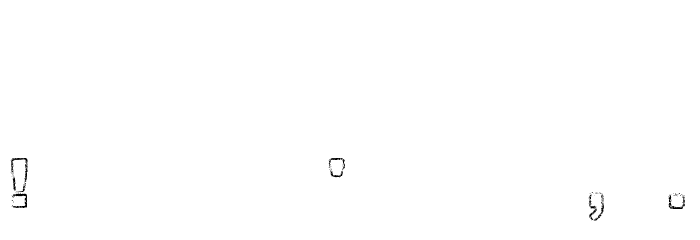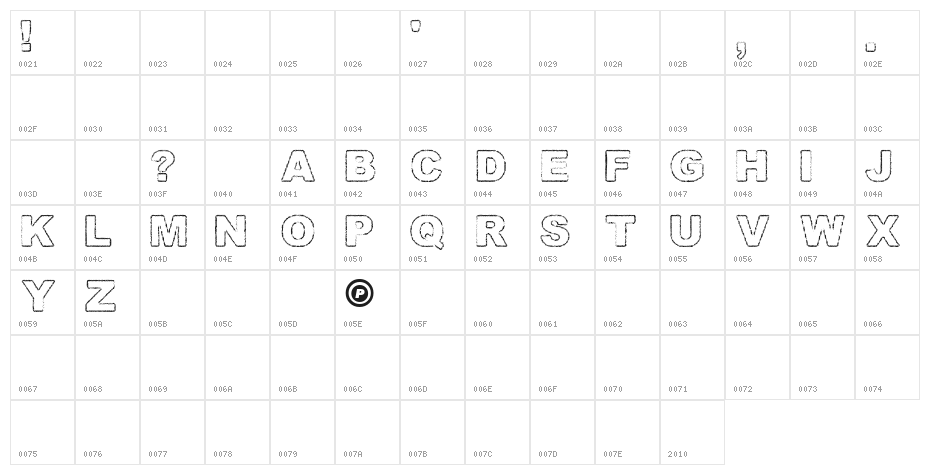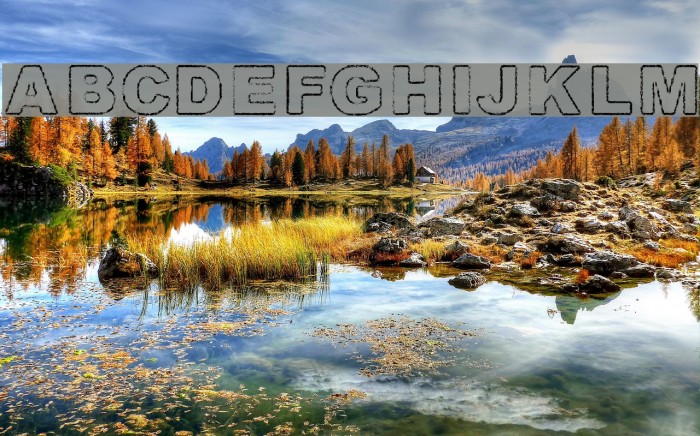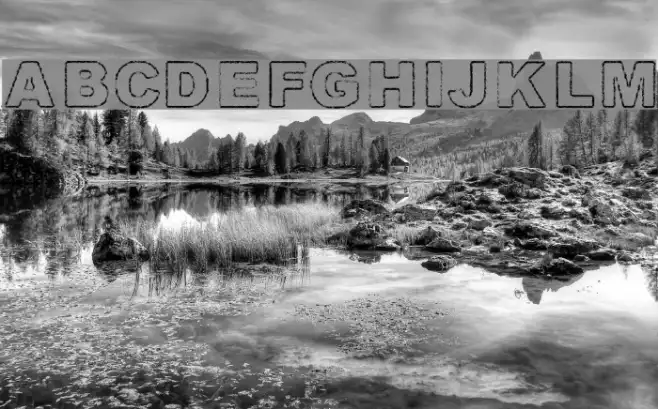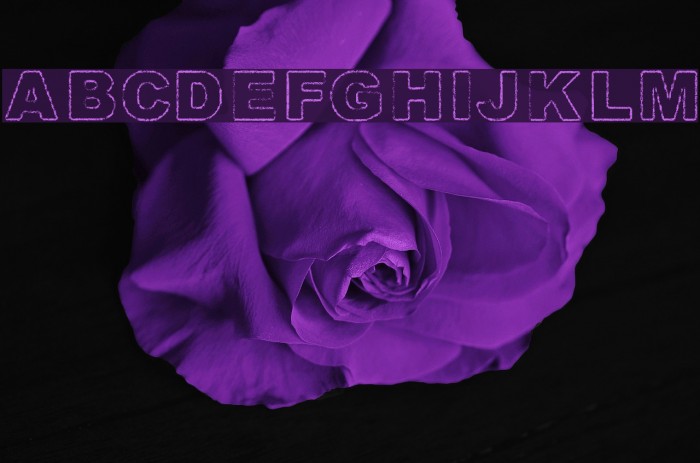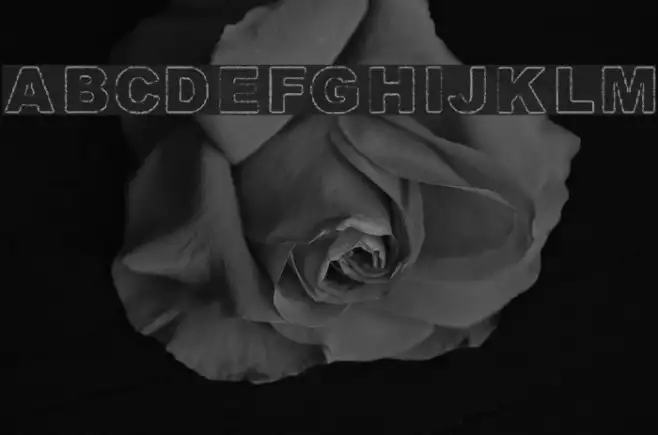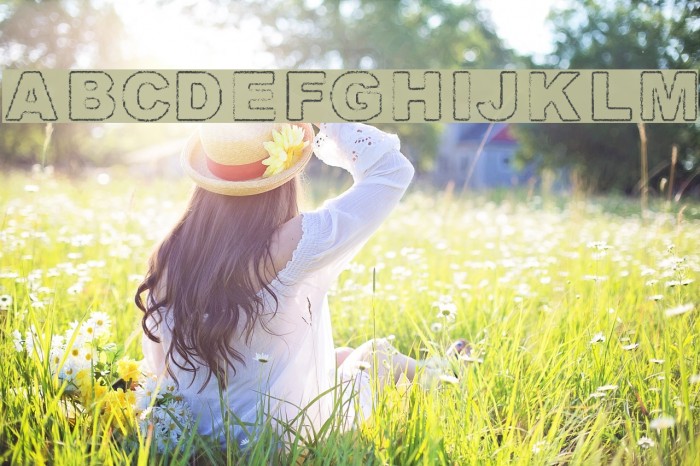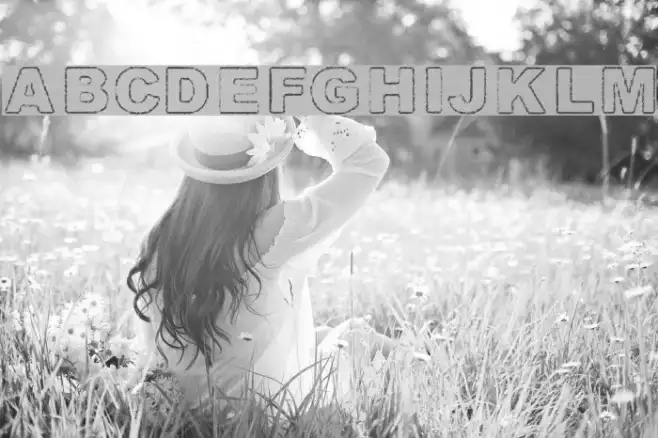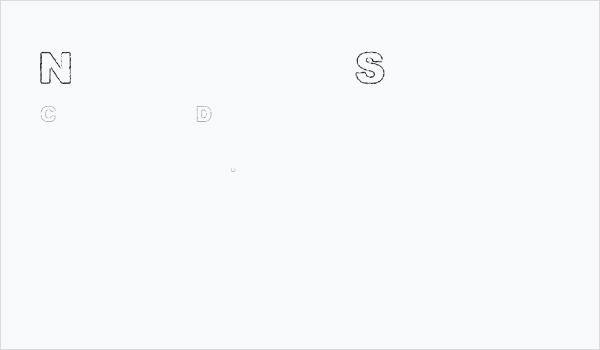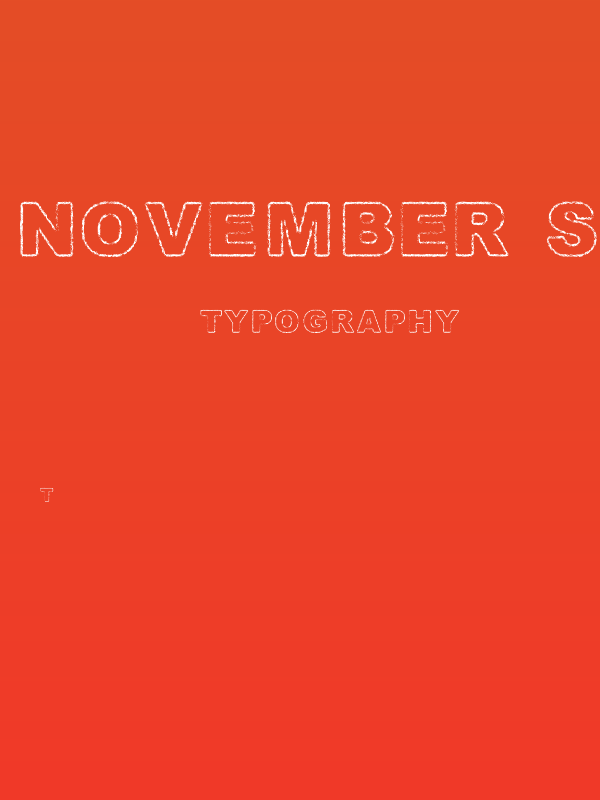
November Sixteenth Font
November Sixteenth Description
This font features a bold, outlined style with a playful and modern aesthetic. The uppercase letters are prominently displayed with a consistent thickness, creating a strong visual impact. The design is clean and geometric, with rounded edges that add a touch of softness to the overall look. The characters are evenly spaced, ensuring readability while maintaining a cohesive appearance. This font is versatile, suitable for various design projects that require a contemporary and eye-catching typeface.
| Proposed Projects | Ideal for posters, headlines, branding, and advertising materials that need a striking and modern look. |